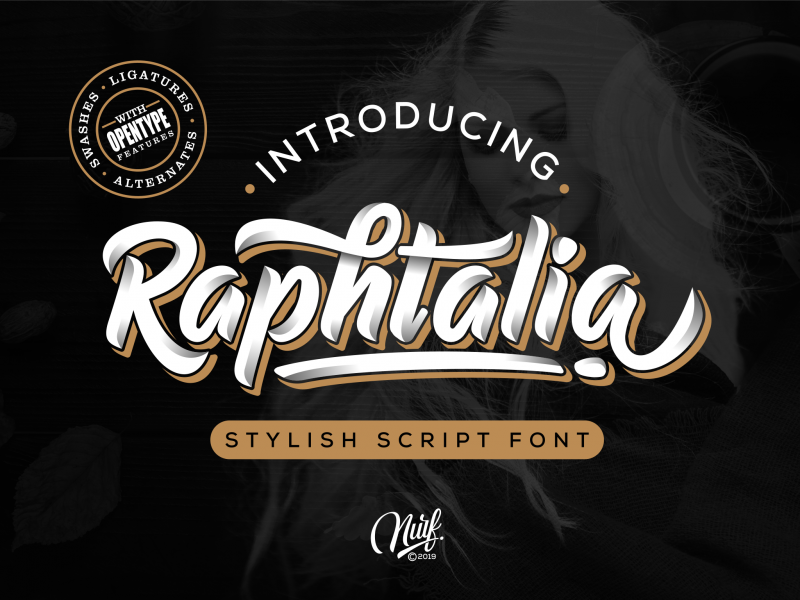
Raphtalia Script Font
Raphtalia is a new Stylish Script Font from Nurf Designs, Designed with a distinct retro feel and lovely elements, Raphtalia is a fun and bold font with a unique vintage appeal!
Raphtalia has Stylistic Alternates, Swashes and Ligatures. You can access all those characters by using OpenType. And you must use a program that already supports the open type like Adobe Illustrator, Adobe InDesign, and CorelDraw X6-X7.
Raphtalia is suitable for Apparel Brand, Greeting or Wedding Cards, Logotype, Title/Header (Book/Magazine) or any design that needs lettering style.